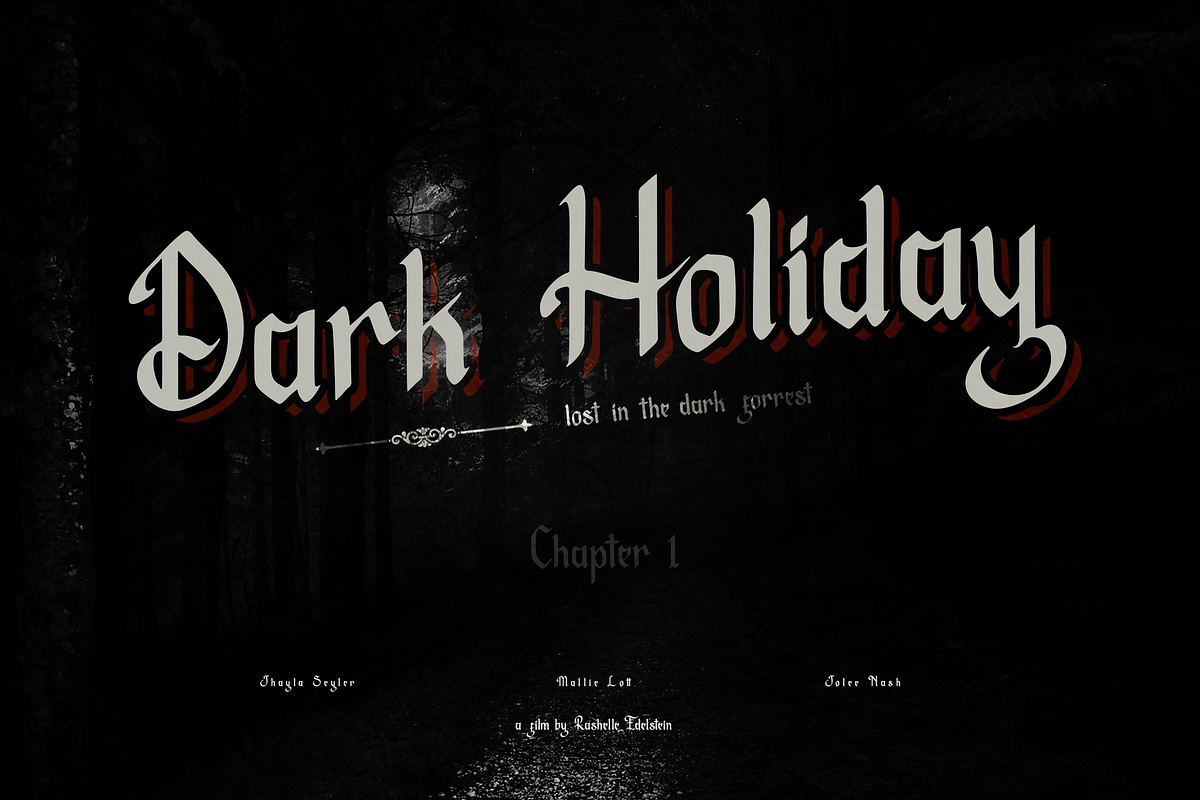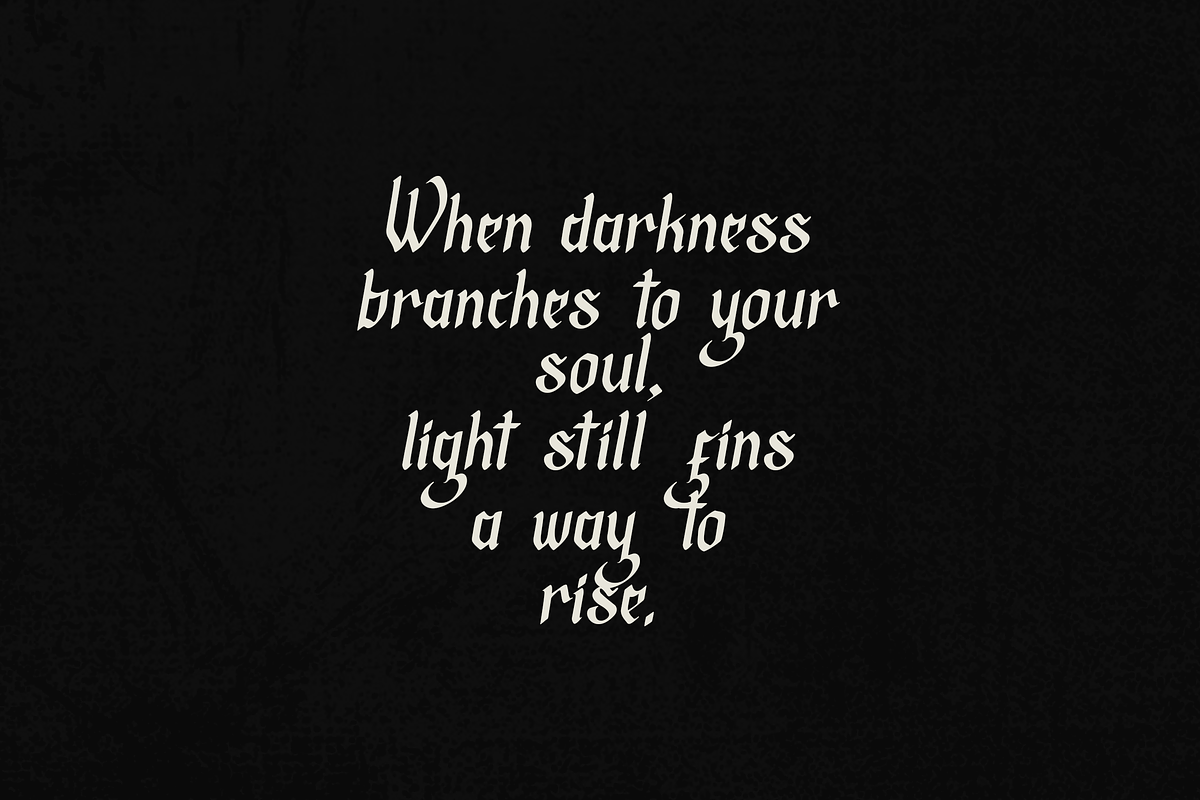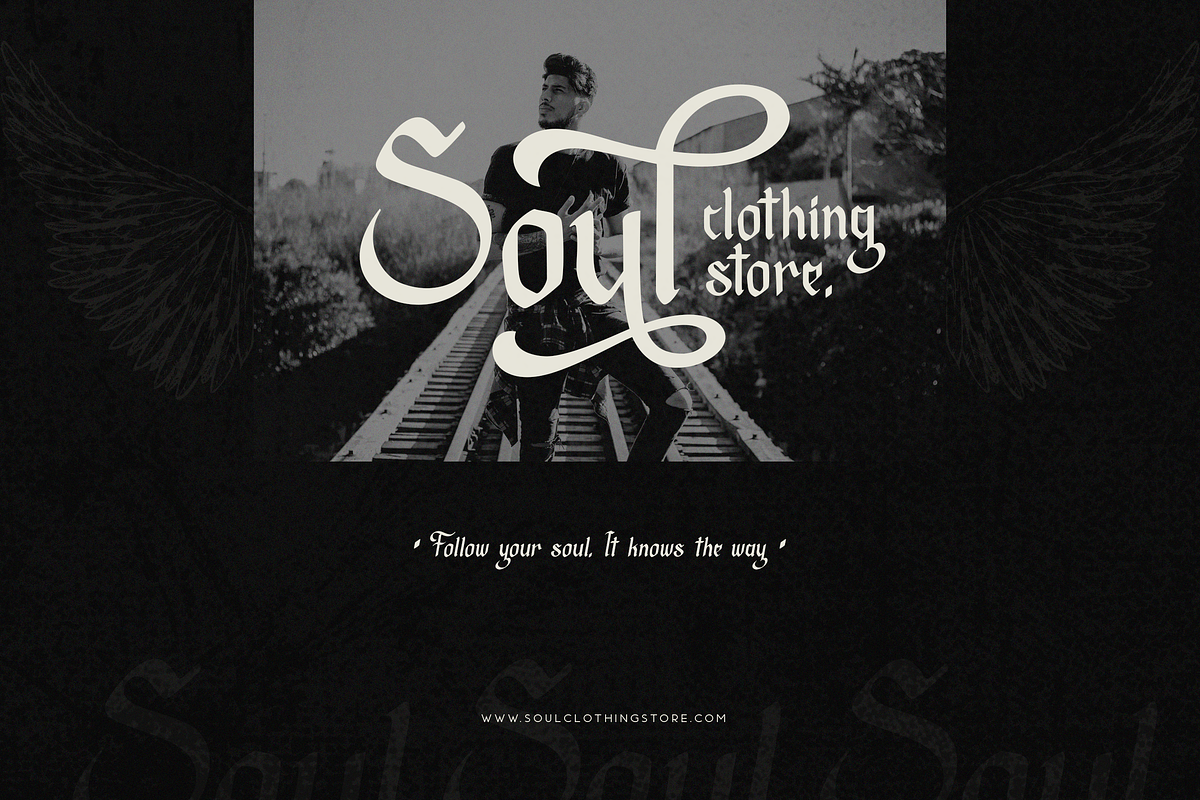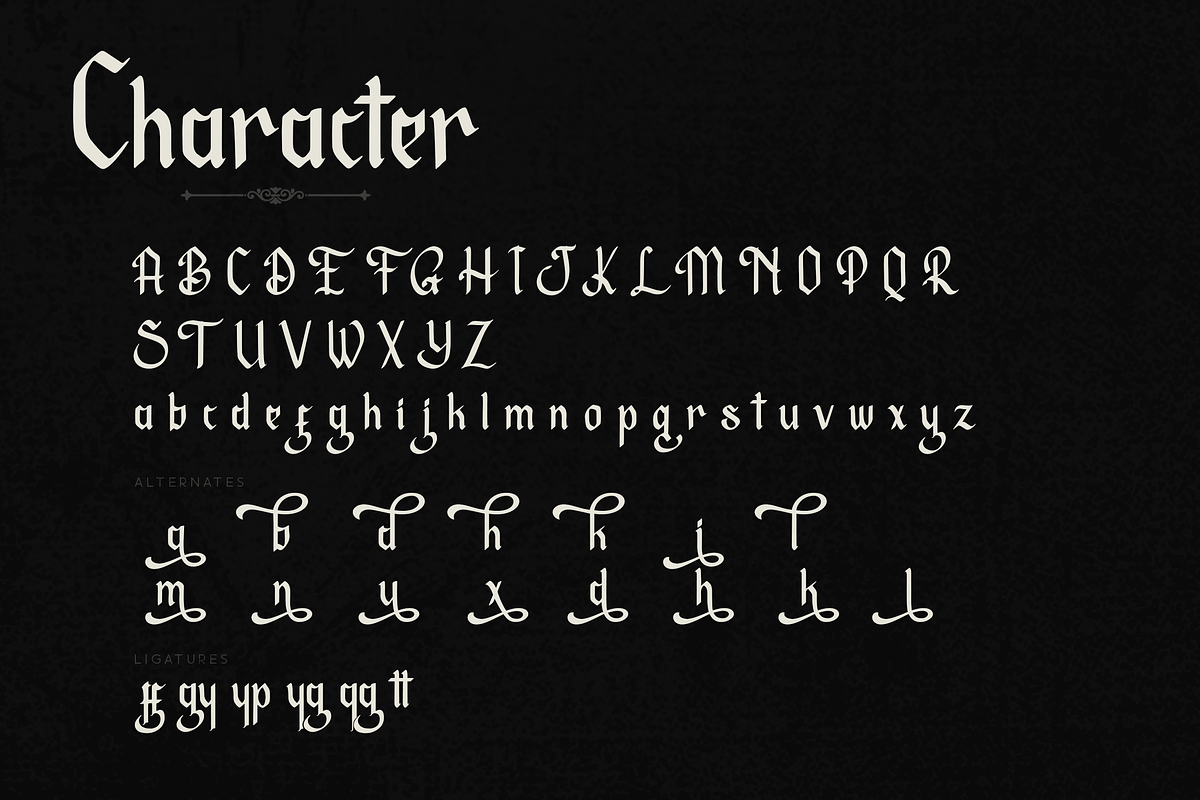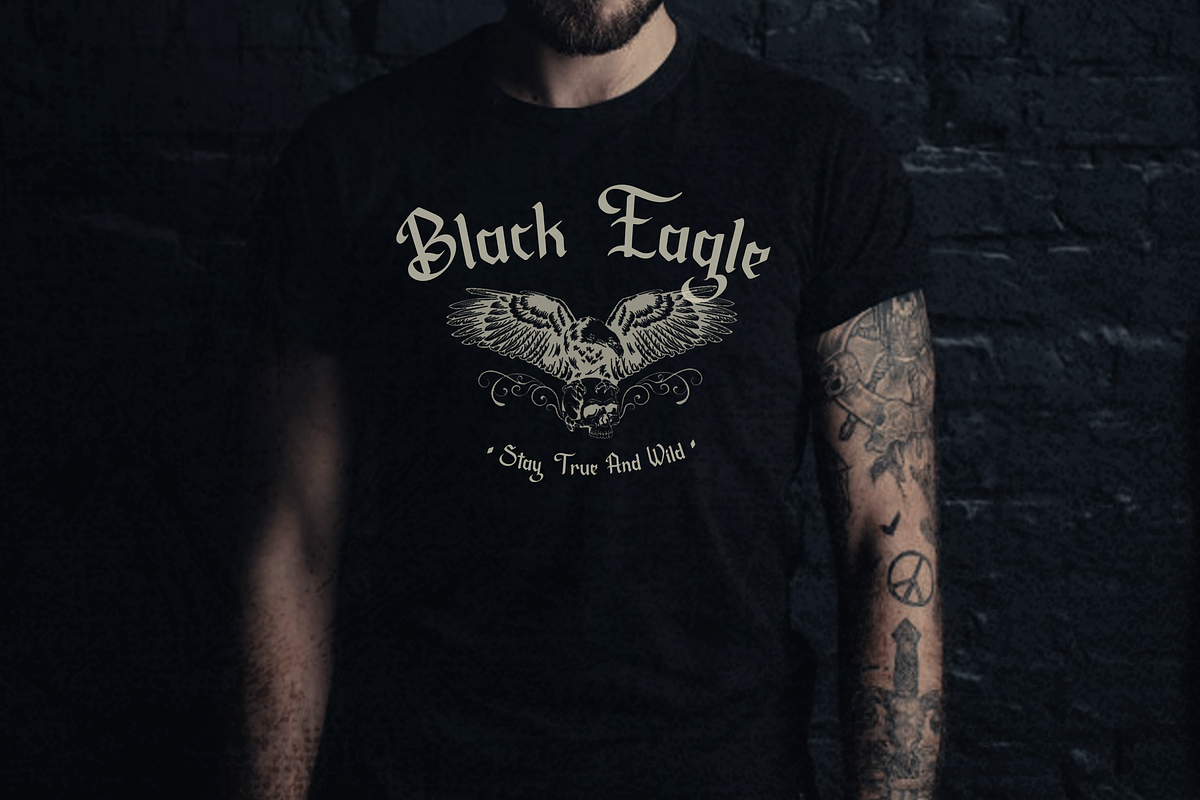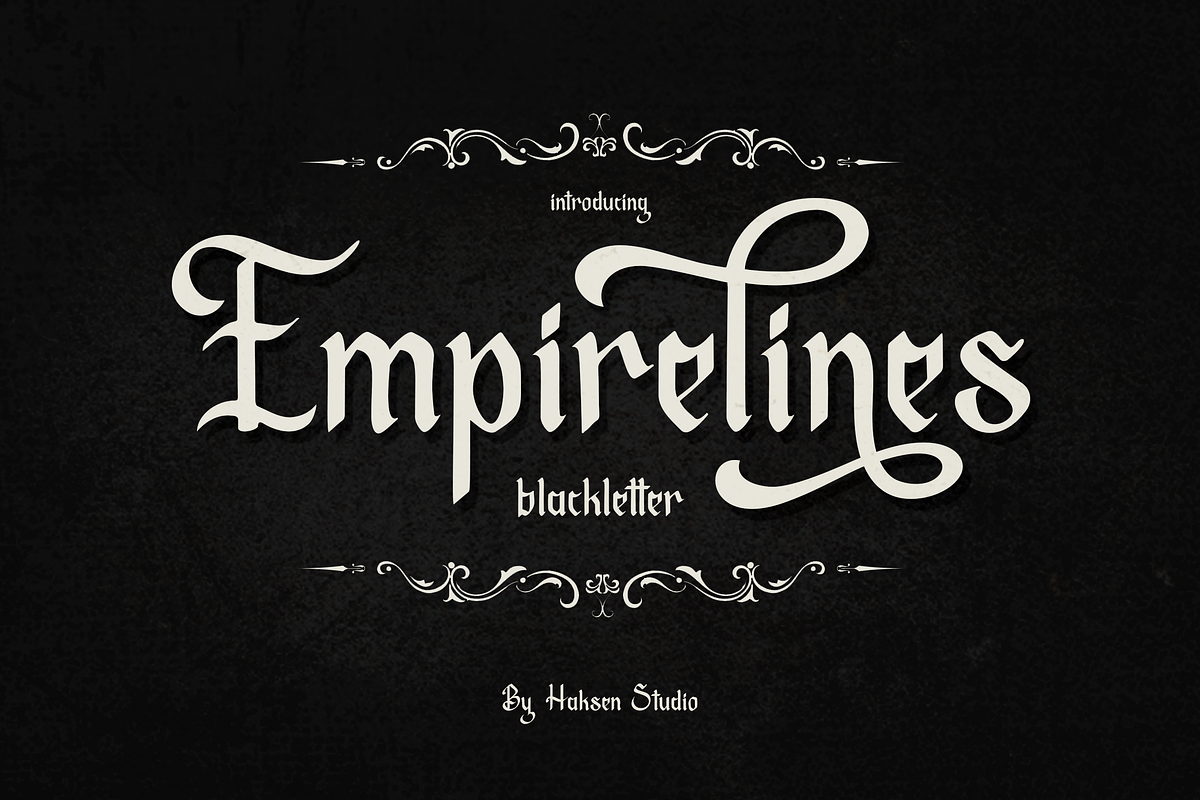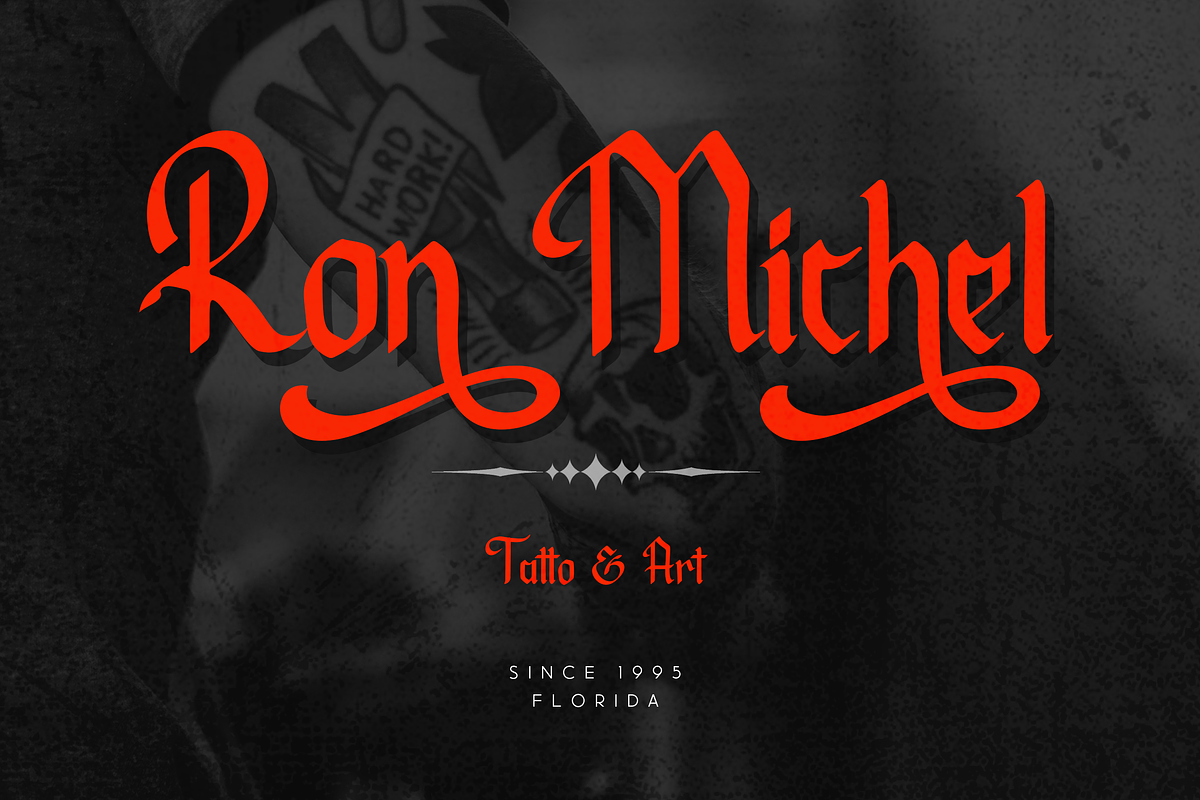
Empirelines
Empirelines are the family of blackletter style with Uppercase and Lowercase feel nice balanced. Provide alternates font in lowercase variant style make the design letter looks incredible. Honestly it works perfectly for headlines, logos, posters, packaging, T-shirts and much more.
- Regular and Italic version
- Character set A-Z in uppercase and lowercase
- Alternates in Lowercase
- Accented Characters
- Multiple Languages Supported